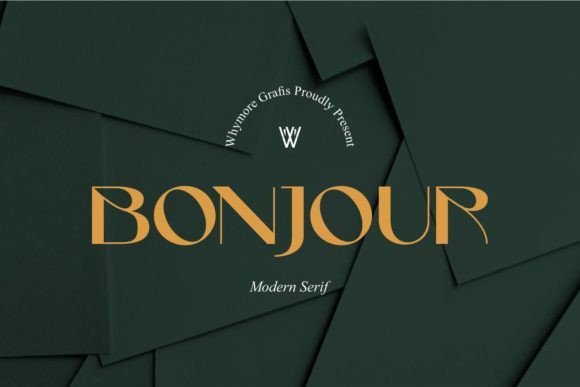
The Elegant Touch of Bonjour Font
As designers, we’ve all been there – staring at a blank page, searching for the perfect font to bring our creative vision to life. It’s that moment of excitement when the perfect combination of style and elegance comes together, elevating our design from ordinary to extraordinary. For many of us, that moment of inspiration is often sparked by the Bonjour Font.
Bonjour Font is more than just a typeface – it’s a statement piece that adds a touch of sophistication and glamour to any design project. Whether it’s a branding campaign, a wedding invitation, or a high-end editorial spread, Bonjour Font is the perfect choice for designers who want to make a lasting impression. Its unique curved shape and elegant nature make it a valuable addition to any designer’s toolkit.
- Unique Characteristics: This font features a unique blend of modern and vintage elements, with subtle flair and texture that adds a touch of elegance to any design.
Bonjour Font Review
As a designer, I was excited to dive into the Bonjour Font and see if it would be a great addition to my design arsenal. Here’s my honest review.
- The Bonjour Font has a unique and elegant feel to it. It’s perfect for designs that need a touch of sophistication and whimsy.
- The font is highly customizable, with a wide range of weights and styles to choose from. This makes it easy to find the perfect fit for your project.
- The font is also highly legible, even at small font sizes. This is especially important for designs where readability is crucial.
- The Bonjour Font can be a bit too ornate for some designs. If you’re going for a clean and minimalist look, this font might not be the best choice.
- The font doesn’t include a lot of special characters or symbols, which can be a limitation for designers who need to use them frequently.
Overall, I think the Bonjour Font is a great addition to any designer’s toolkit. While it may not be the best choice for every project, it’s perfect for designs that need a touch of elegance and sophistication. With its high level of customizability and legibility, I would definitely recommend giving it a try.
Tip: Use the Bonjour Font to add a touch of elegance to your designs, especially for invitations, greeting cards, and other formal documents.
Tip: Use the Bonjour Font to create beautiful typography for your designs, especially for logos, branding materials, and editorial content.
Tip: Use the Bonjour Font to add a touch of sophistication to your presentations and documents, especially for business reports, proposals, and marketing materials.
The Bonjour Font is ideal for:
- Formal invitations and greeting cards
- Editorial content and typography
- Business reports and proposals
- Marketing materials and presentations